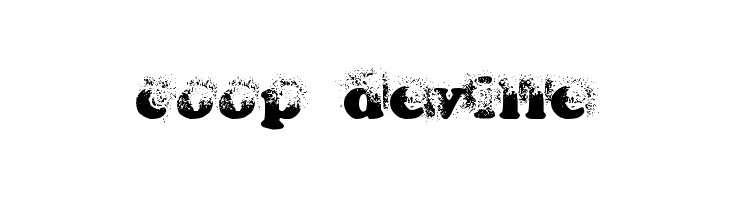
A bold, distressed font with a rugged, pirate-inspired aesthetic.
A bold, distressed font with a rugged, vintage appearance.
A bold, distressed font with an edgy, grunge-like style.
A bold, distressed font with a grunge aesthetic.
A bold, textured font with a distressed, weathered appearance.
A bold, distressed serif font with a vintage, weathered appearance.